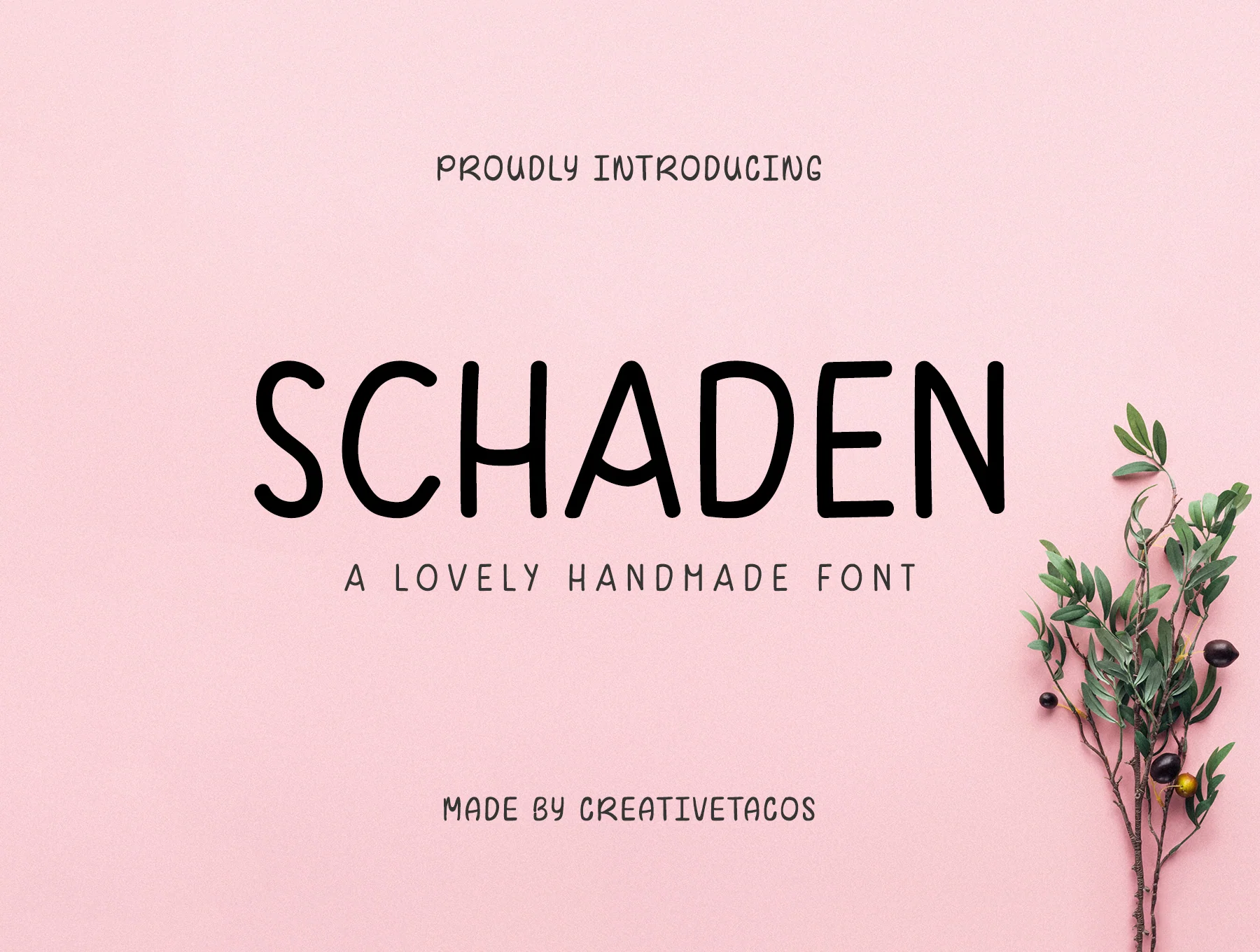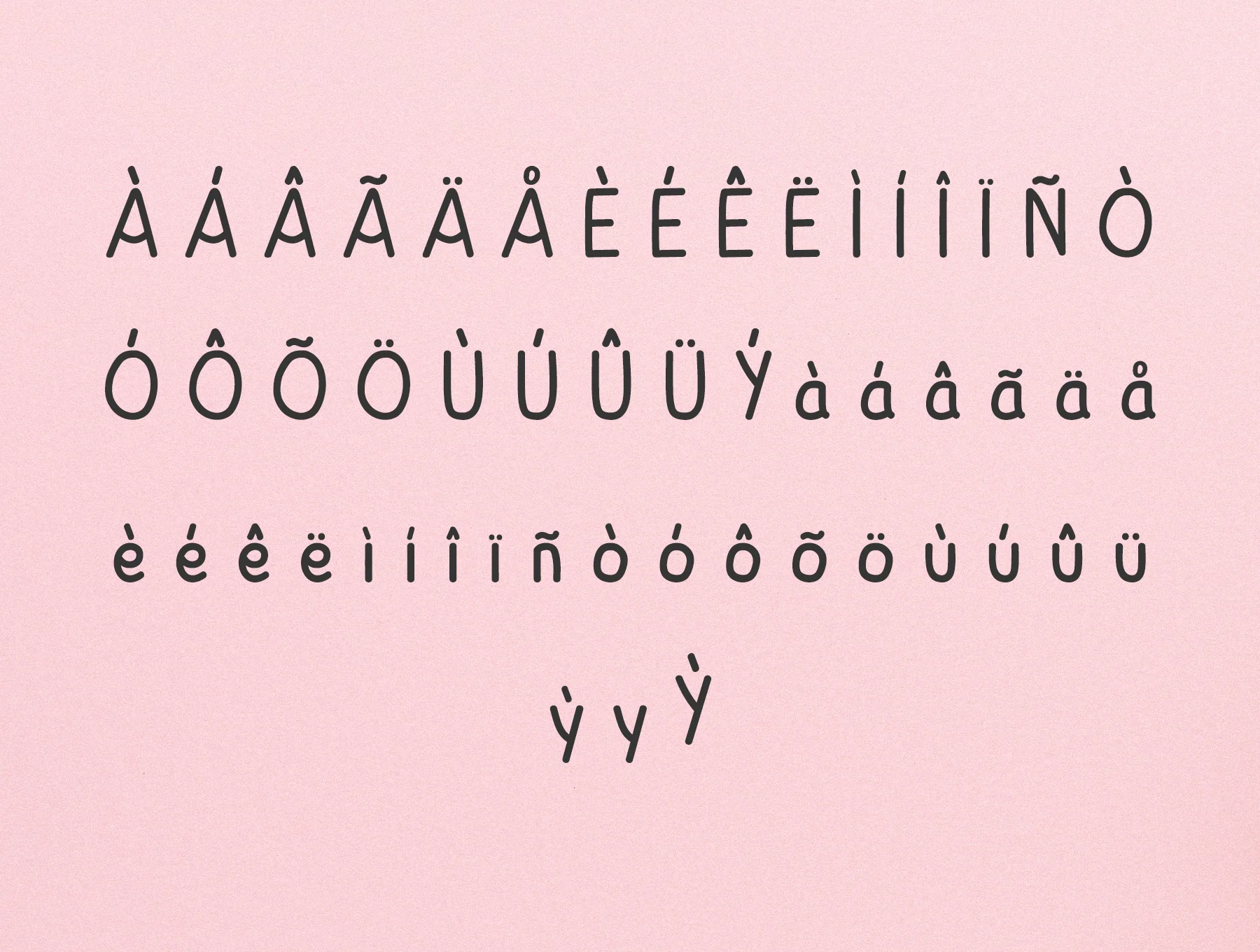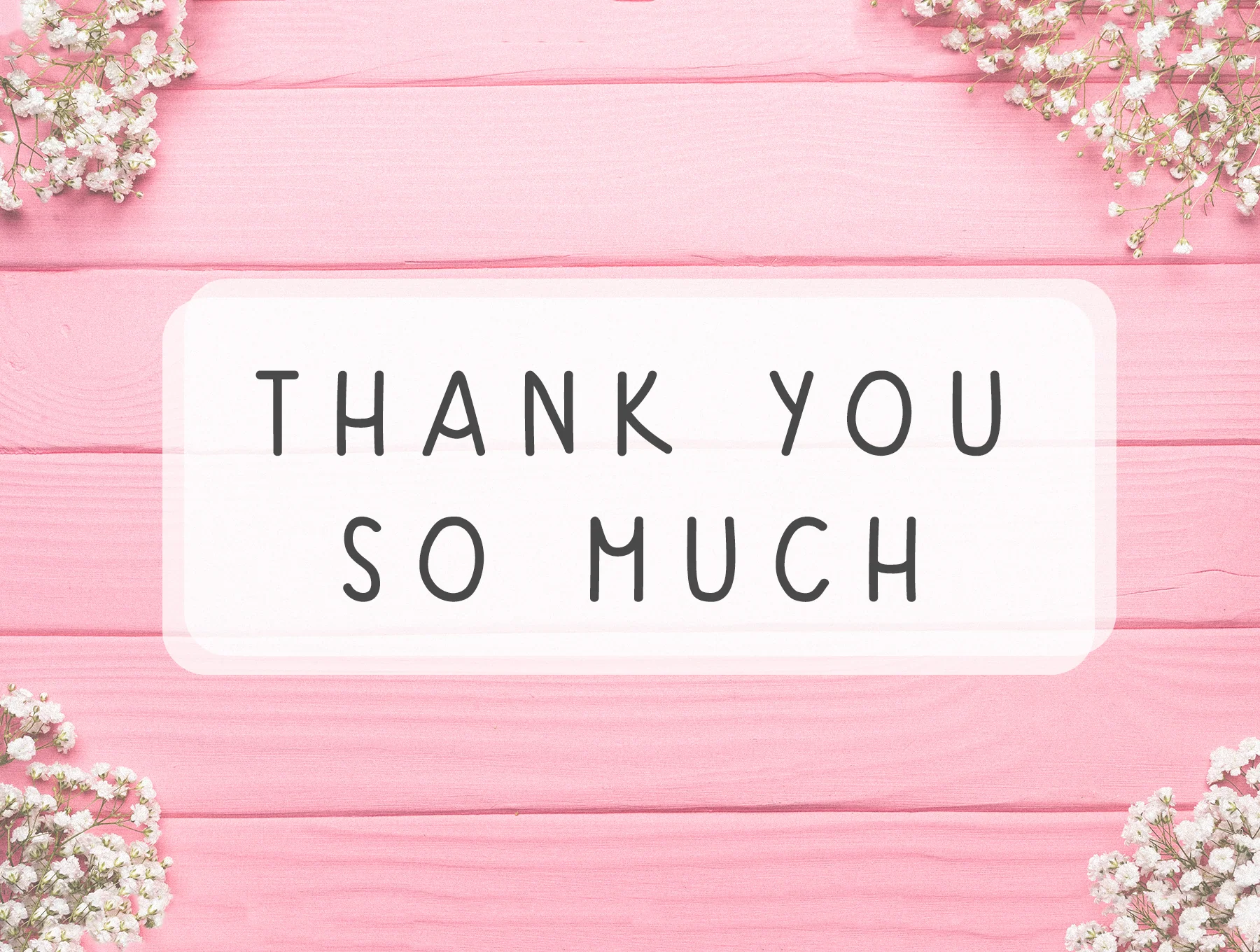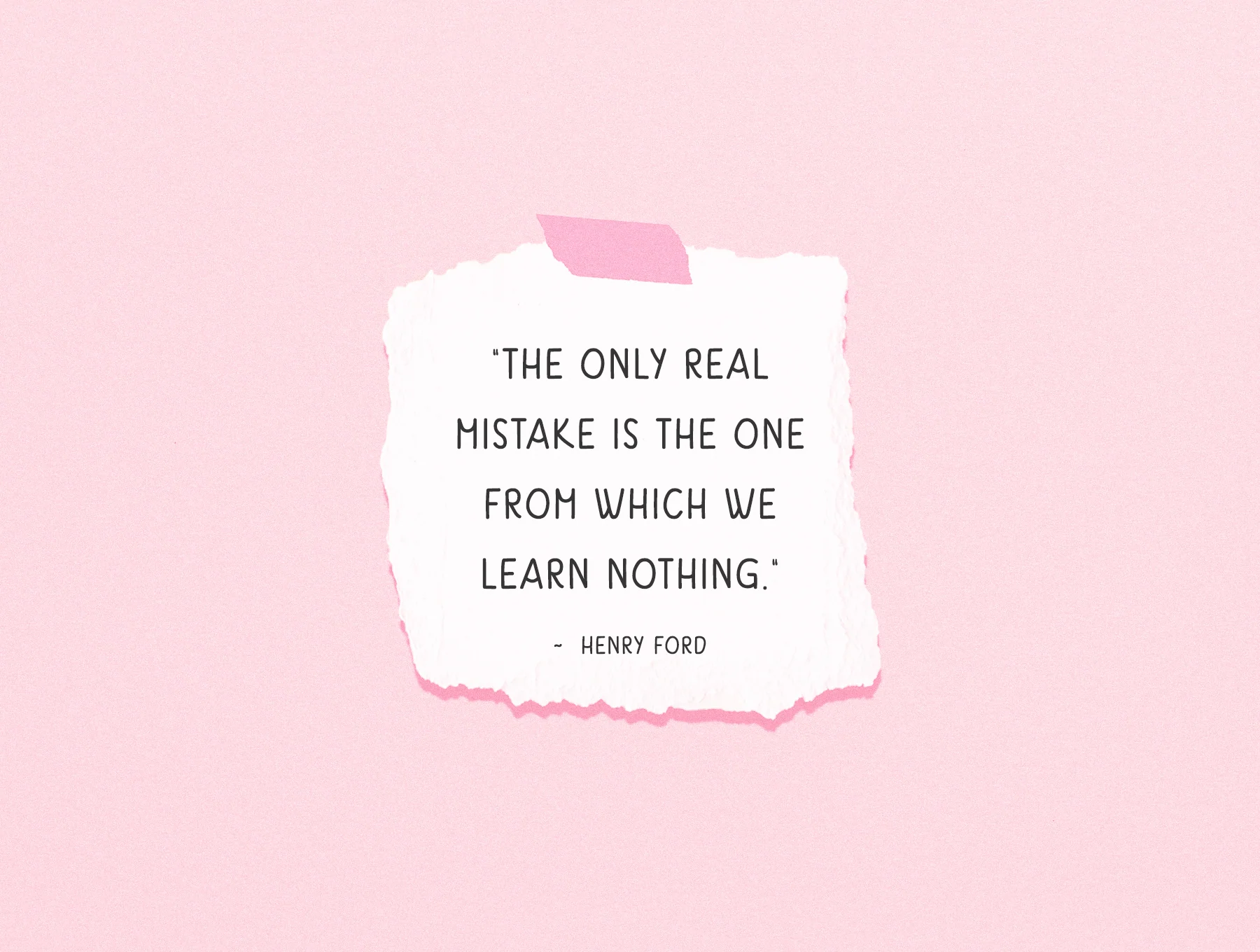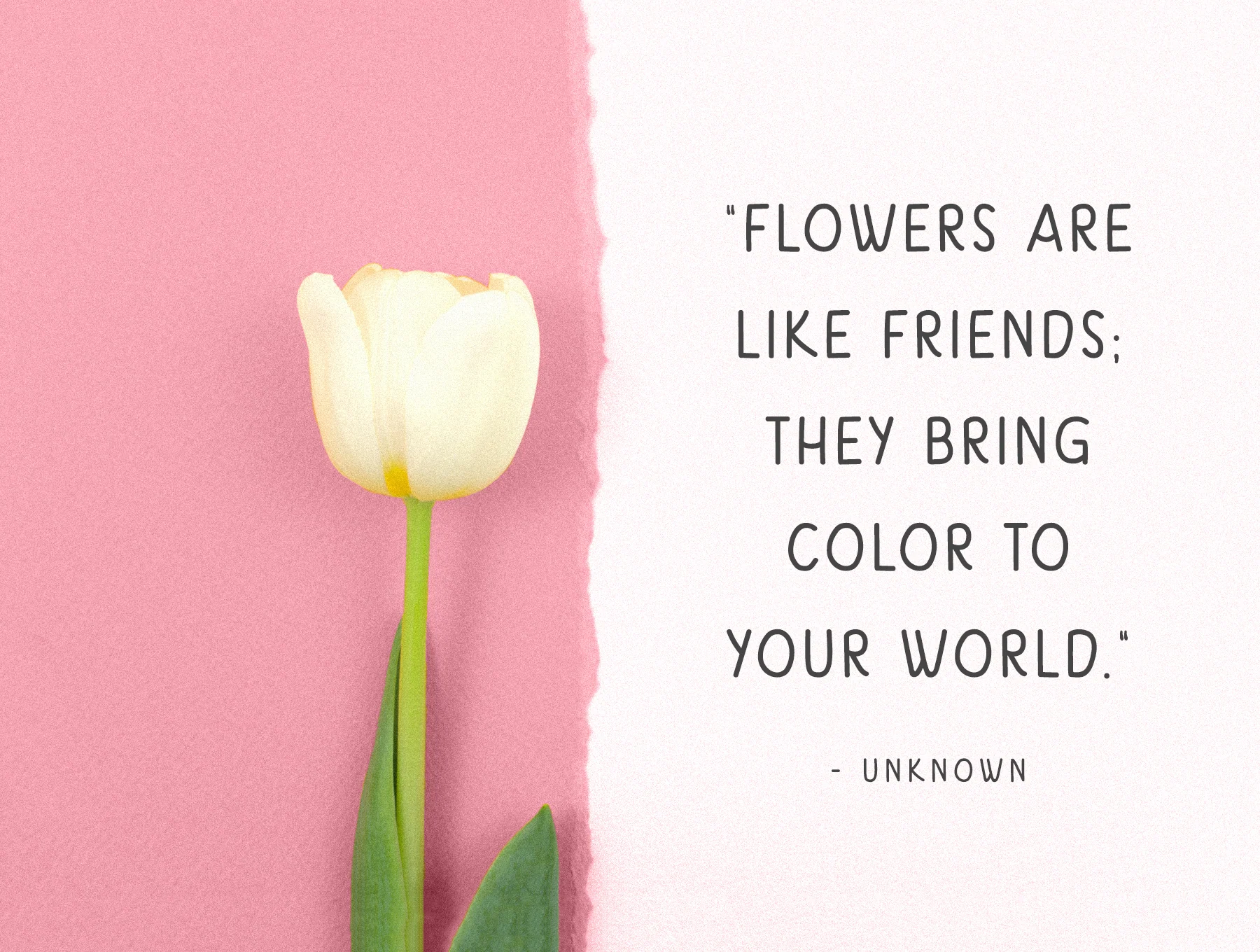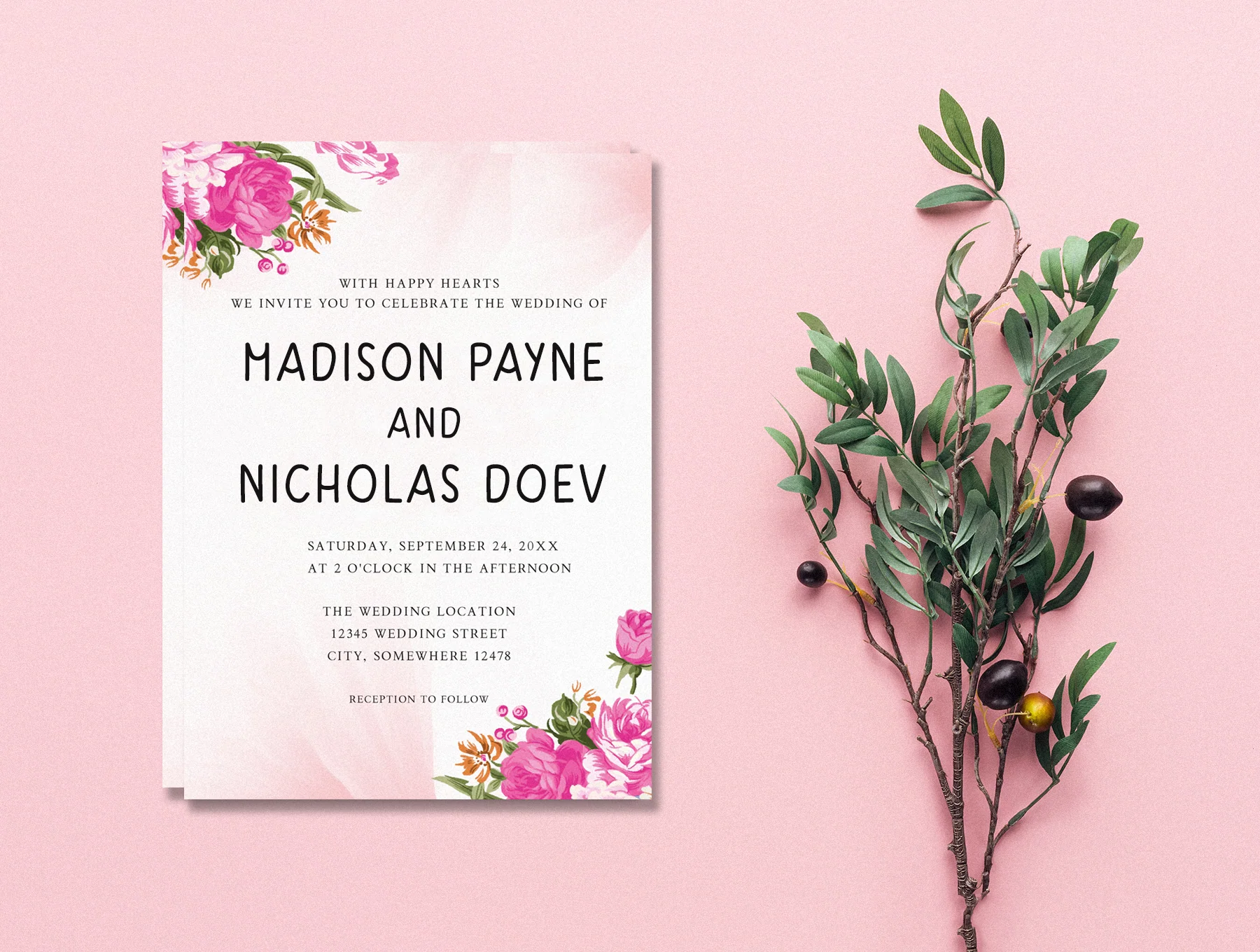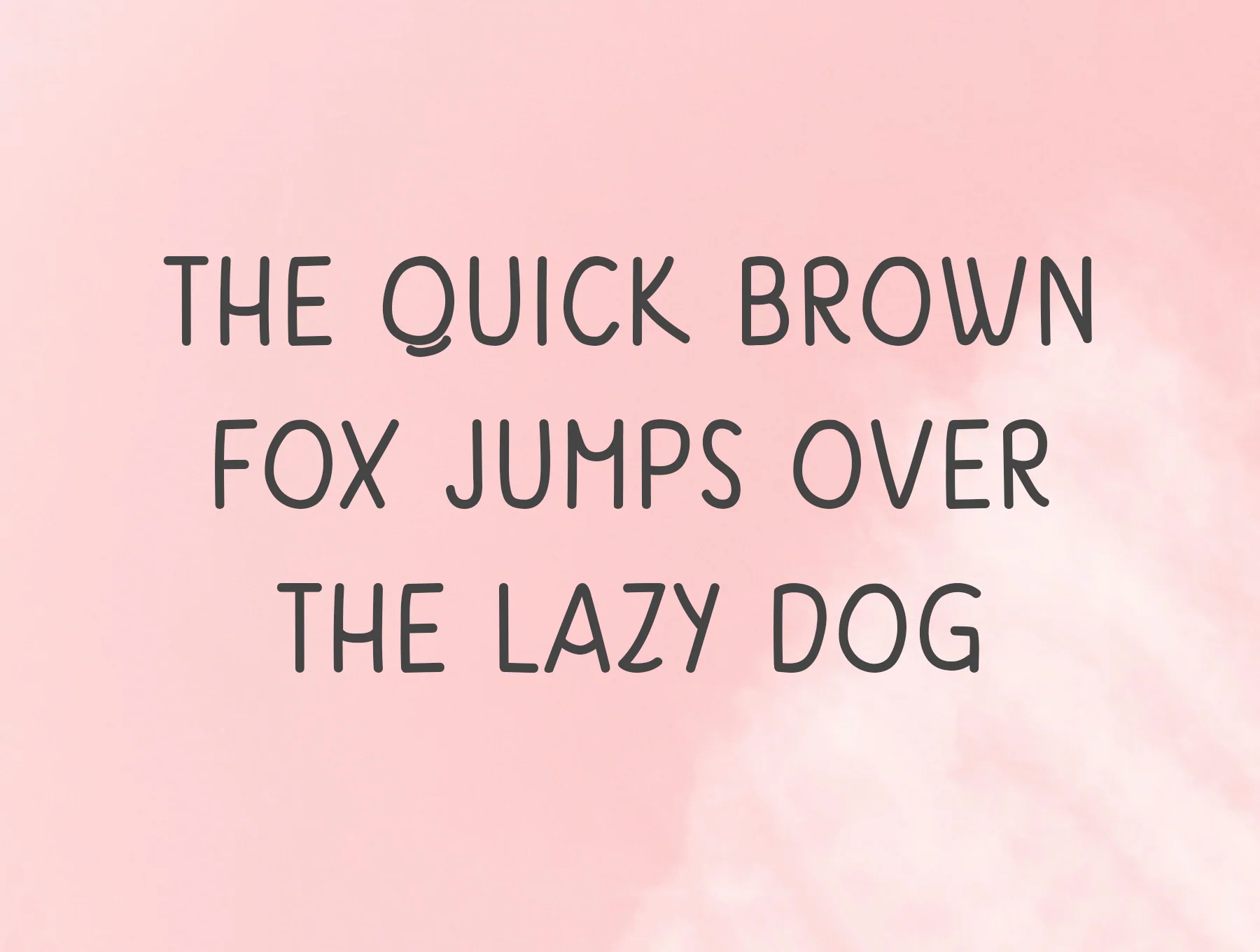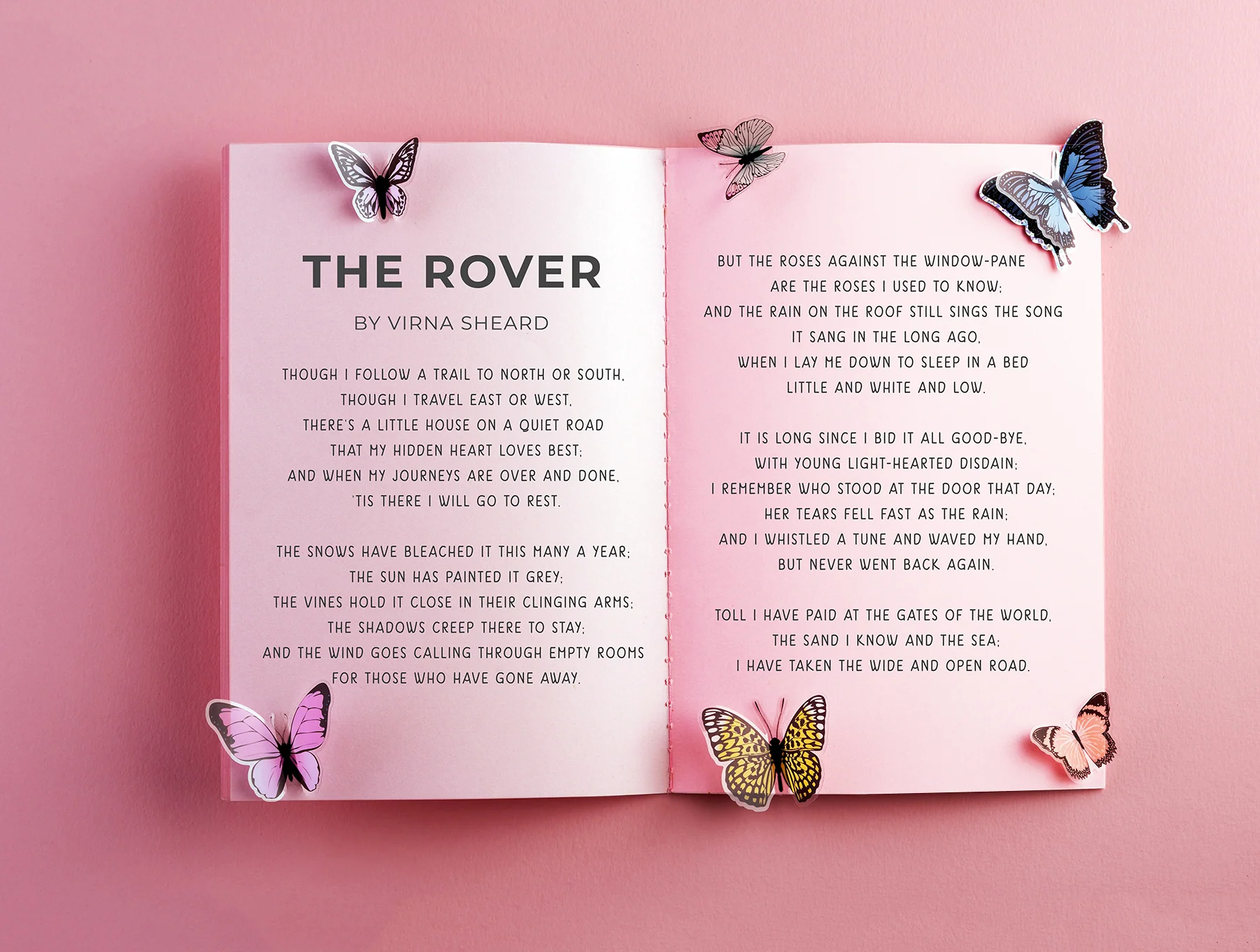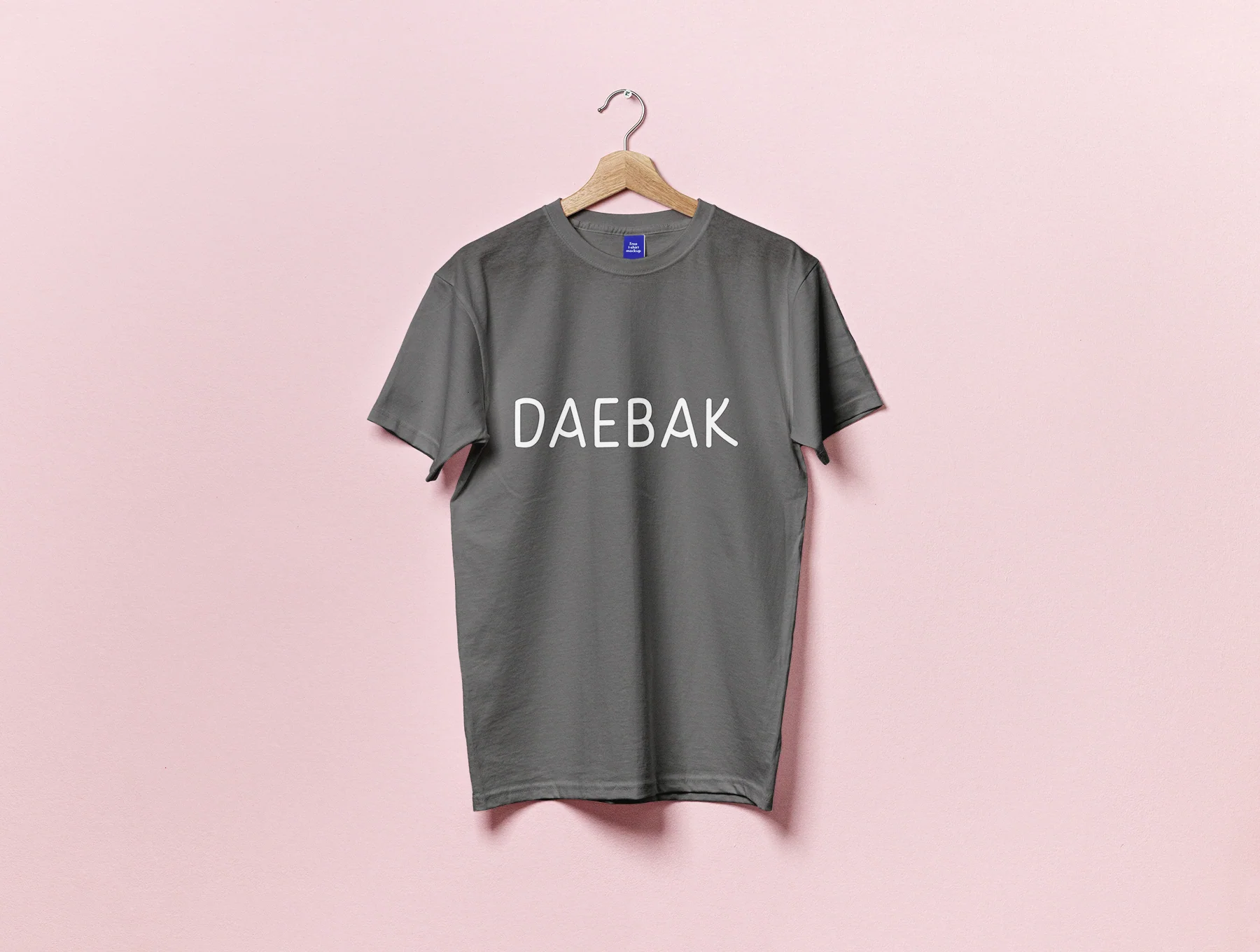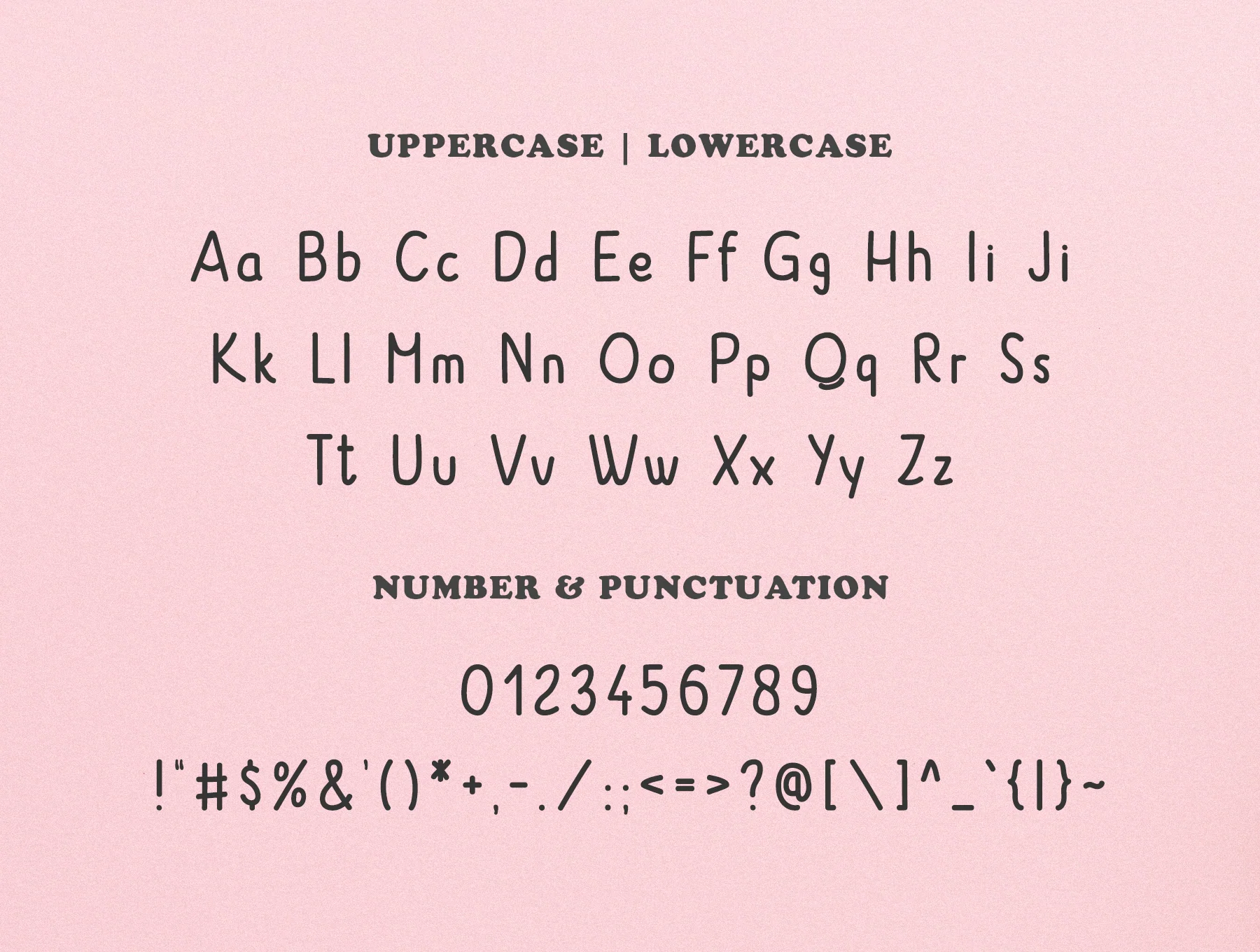
Schaden Handmade Font
Schaden Handcrafted Typeface
Handcrafted typeface
Schaden Handmade Font is a charming handwritten typeface with a refined, lasting look for creative work. It includes regular weight in OTF, TTF, and web font formats, with caps, small letters, numerals, punctuation, symbols, and multilingual support. Ideal for logos, packaging, posters, quotes, invitations, branding, books, web designs, kids’ projects, and more.